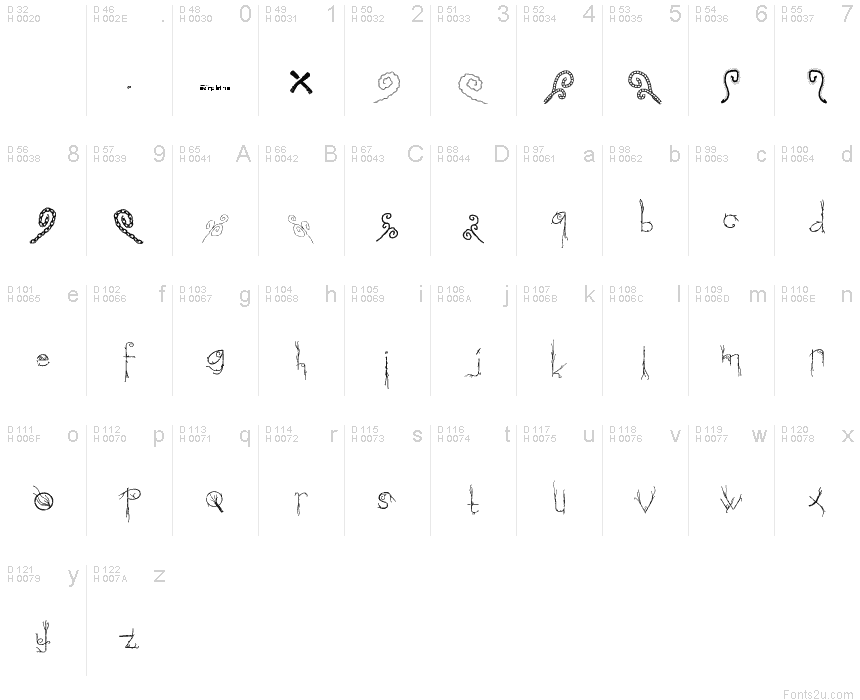
Morphina2 by Cyanide Inc is a free calligraphic display font drawn with wiry strokes and extravagant loops. Its letters shift between broad circular sweeps and long needle-thin drops, producing an eerie handwritten silhouette with deliberately uneven joins.
Fashion branding and gothic music artwork differ sharply, yet both suit its fragile lines and theatrical flourishes, which can also lend event invitations a haunted elegance. In illustrated work, the trailing strokes can echo tangled thread, bare branches, or fine pen-and-ink ornament.